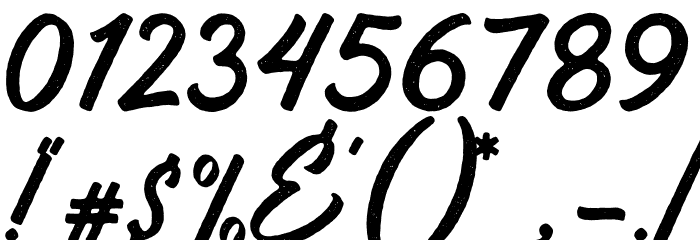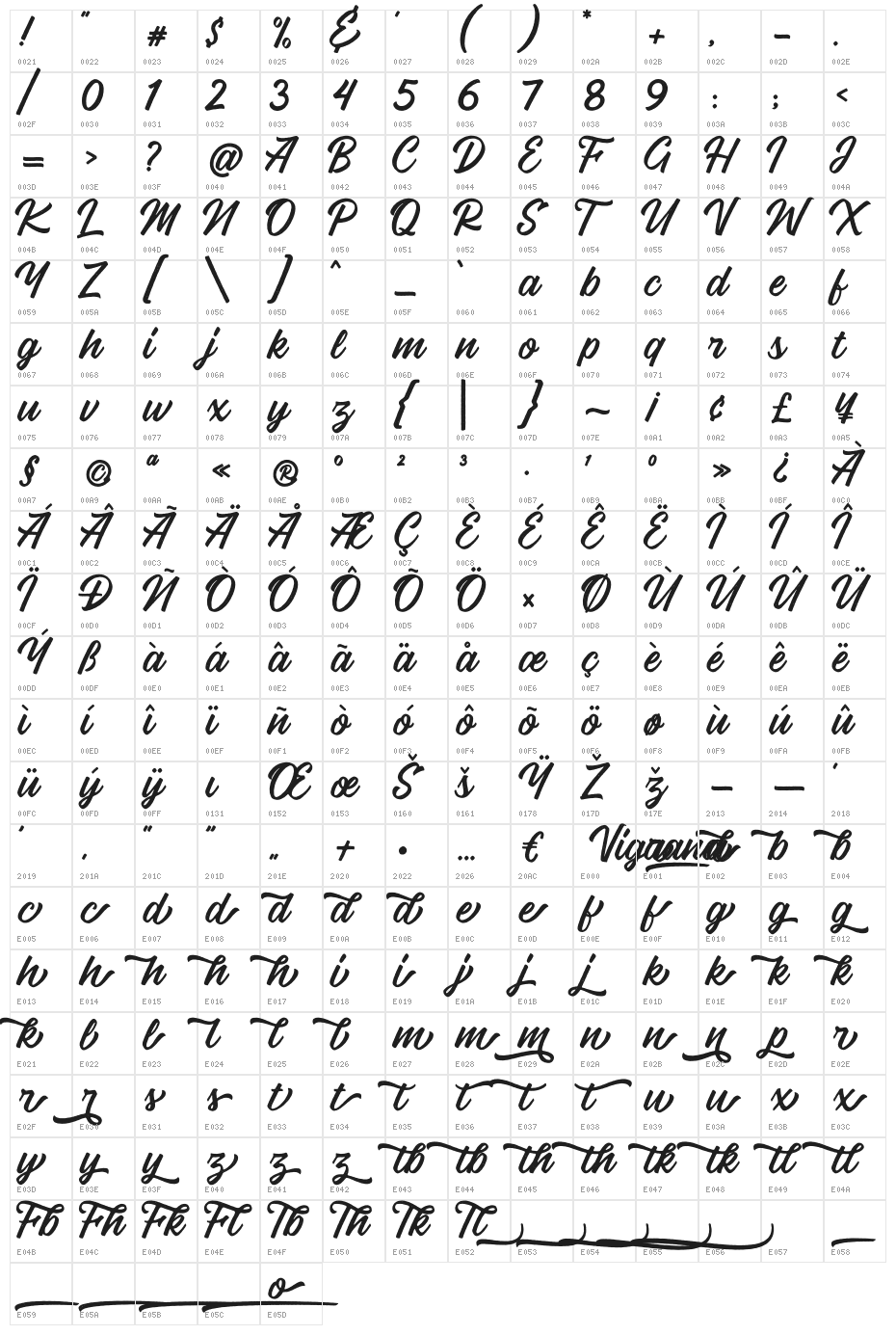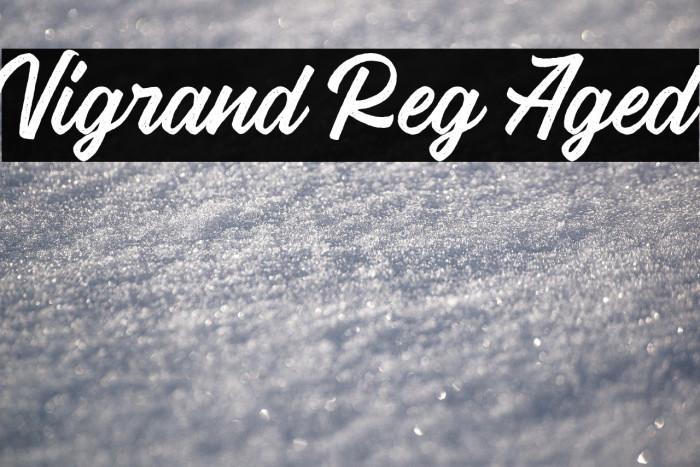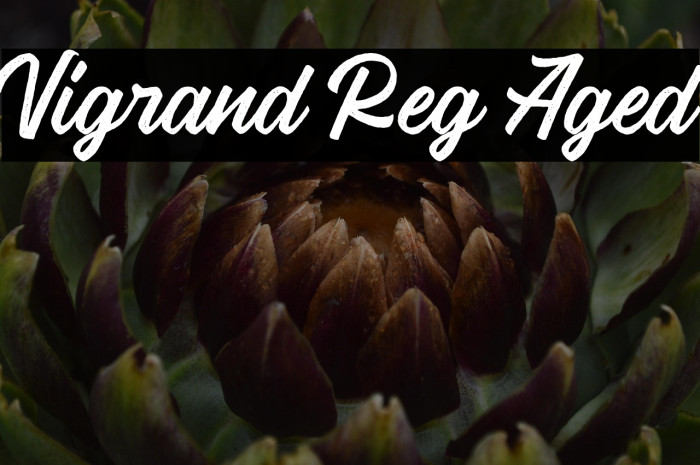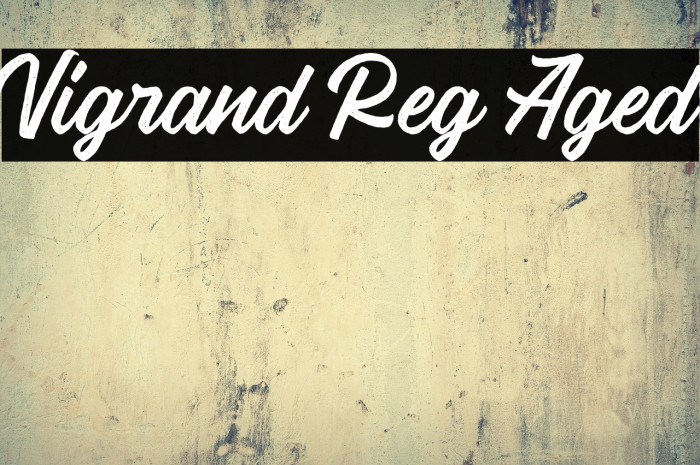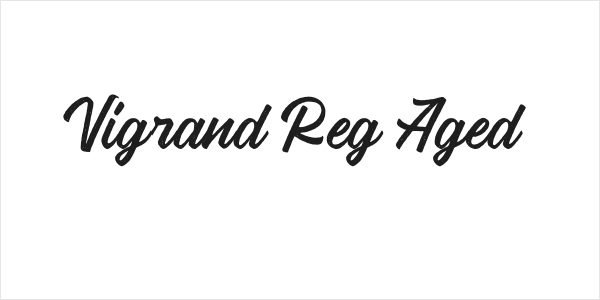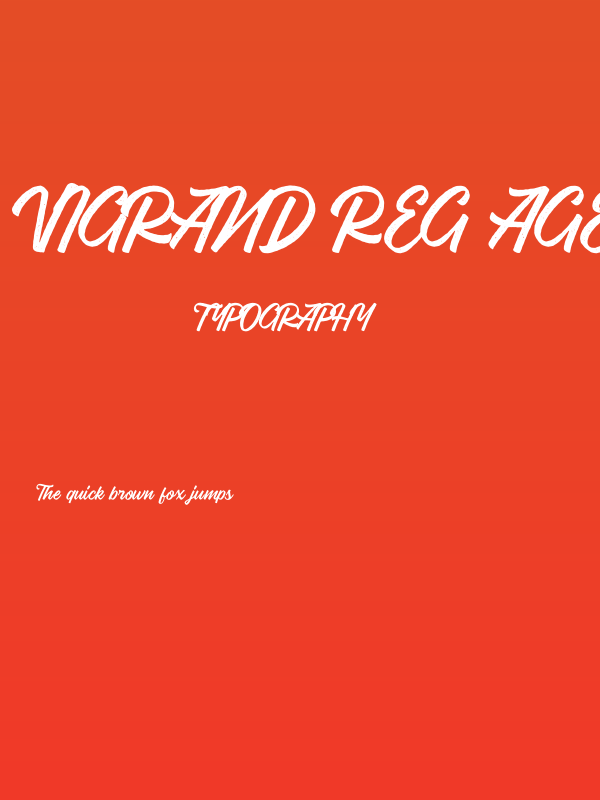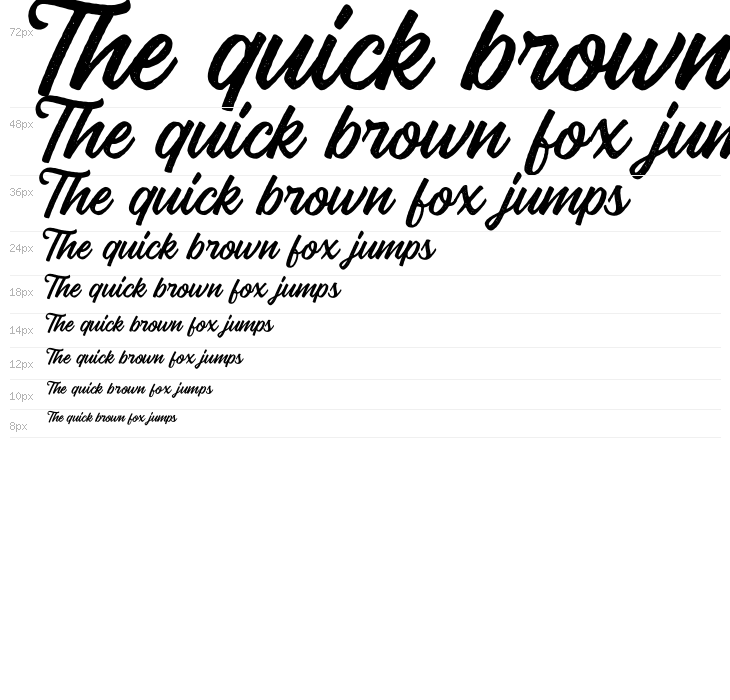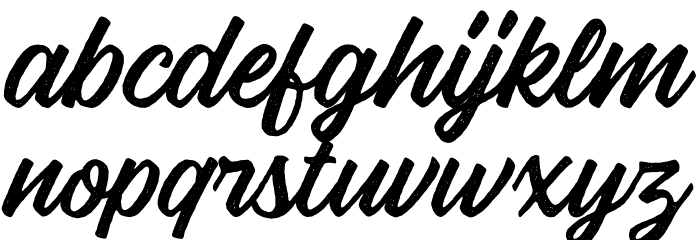
Vigrand Reg Aged Font
Vigrand Reg Aged Description
This font exudes a vintage charm with its script style, characterized by flowing, connected letters that mimic cursive handwriting. The strokes are bold and slightly textured, giving it an aged, rustic appearance. The uppercase letters are elegantly looped, while the lowercase letters maintain a consistent flow, enhancing readability. The numerals and special characters are crafted with the same attention to detail, ensuring a cohesive look across all glyphs. This font is perfect for projects that require a touch of nostalgia and personality.